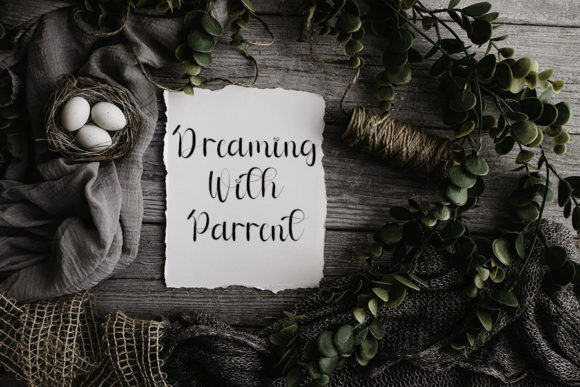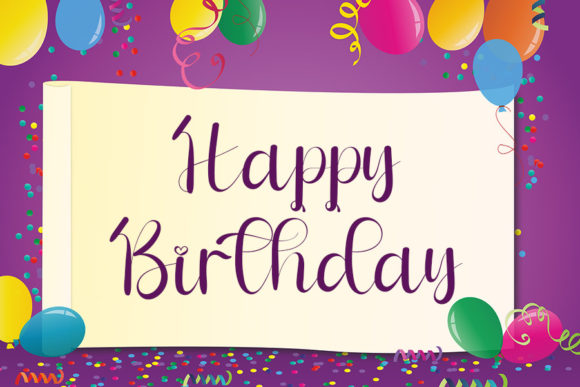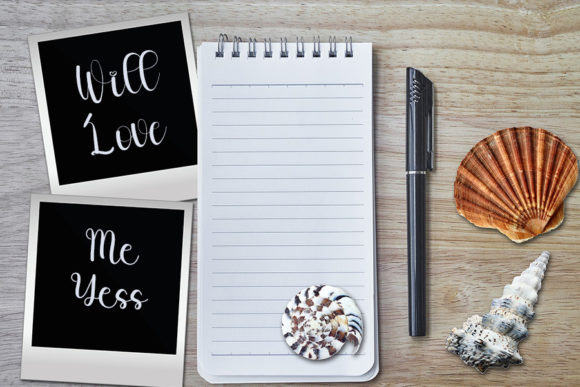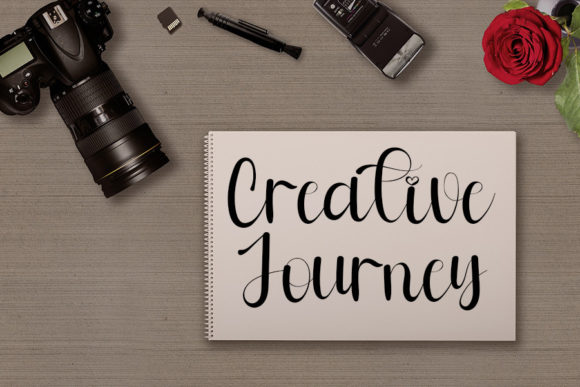
Creative Signature Font
Creative Signature is a classic script font. This font will be an incredible asset to your fonts’ library, as it has the potential to elevate any creation.